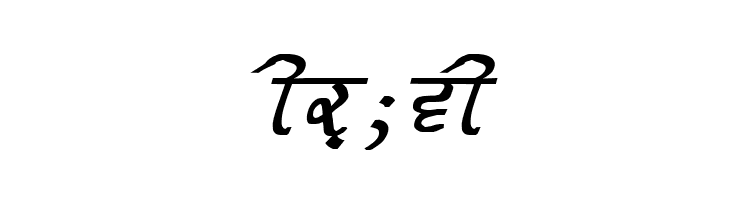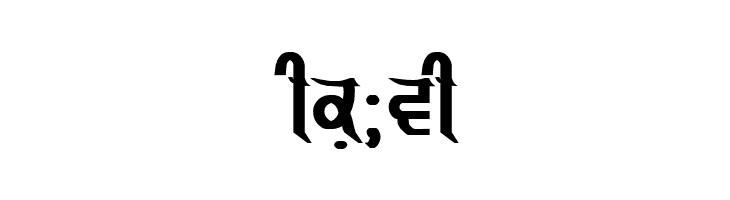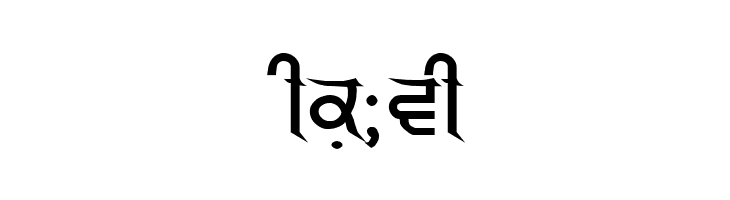
Kruti Dev 010 Font
A structured and clear Devanagari script font ideal for Hindi typing.
DevLys 010 Font
A clean and geometric Devanagari script typeface with consistent stroke widths.
Kruti Dev 040 Wide Font
A bold and wide Devanagari script with clear, consistent letterforms.
GurmukhiLys 020 Font
A modern Gurmukhi script font with clear, balanced strokes and comprehensive character support.
Kruti Dev 100 Font
A traditional Devanagari script font with moderate contrast and condensed spacing.
GurmukhiLys 020 Wide Font
A modern Gurmukhi script font with clear, legible characters and moderate stroke contrast.
Kruti Tamil 010 Font
A graceful and elegant Tamil script font with moderate contrast and flowing characters.
GurmukhiLys 020 Thin Font
A thin, elegant font with high legibility and modern appeal.
Kruti Dev 040 Thin Font
A clean and structured Devanagari script with consistent stroke width.
Kruti Dev 040 Condensed Font
A condensed Devanagari script with clean lines and consistent stroke width.
Kruti Dev 100 Thin Font
A traditional Devanagari script font with elegant, thin strokes and moderate contrast.
Kruti Dev 100 Bold Font
A bold, decorative font with intricate, traditional Indian script-inspired letterforms.
GurmukhiLys 010 Font
A bold and clear Gurmukhi script with modern and traditional elements.
Kruti Dev 060 Font
A bold, geometric Devanagari script with modern, clean lines.
Kruti Dev 040 Bold Font
A bold and structured font with clear, prominent strokes and balanced character spacing.
Kruti Dev 100 Wide Font
A bold and wide Devanagari script font with high contrast and decorative style.
GurmukhiLys 010 Wide Font
A bold and modern Gurmukhi script font with wide spacing and clear legibility.
Kruti Dev 100 Condensed Font
A condensed Devanagari script font with decorative and traditional letterforms.
GurmukhiLys 020 Condensed Font
A condensed Gurmukhi script font with clear, legible characters and efficient space usage.